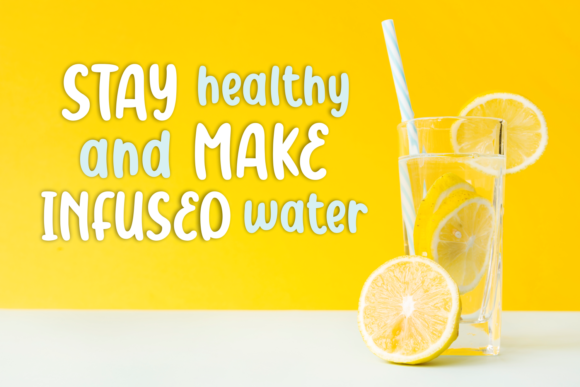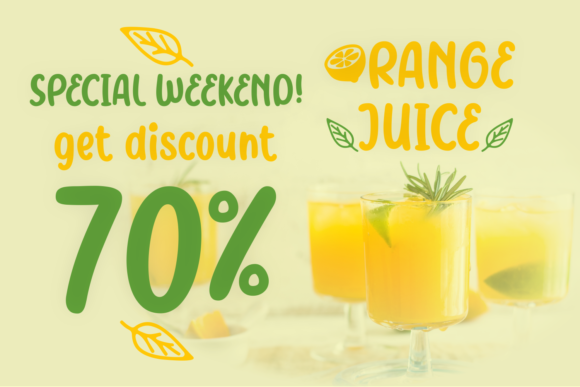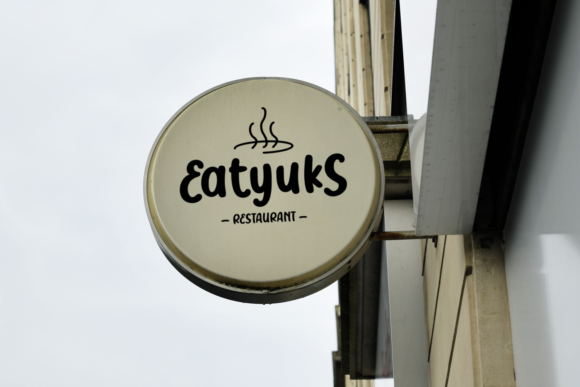
Lemonmint Font
About Lemonmint Font
Lemonmint is a fresh and light handwritten font, full of creative energy. It will add an adorable charm to any design project!